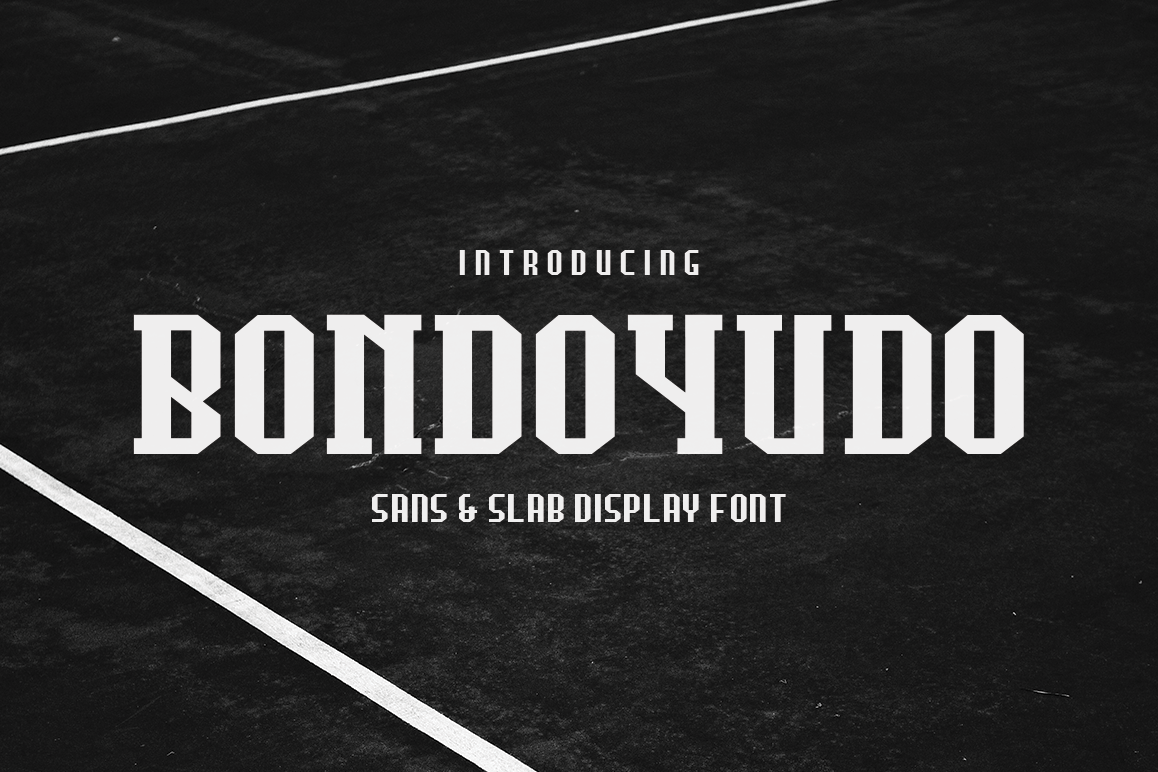
Bondoyudo Pro Display
Hello, introduce my newest font called Bondoyudo.
Strong and bold is suitable for titles, logos or header text.
This font has four styles :
• Regular Sans-serif
• Sans-serif Italic
• Regular Slab-serif
• Slab-serif Italic